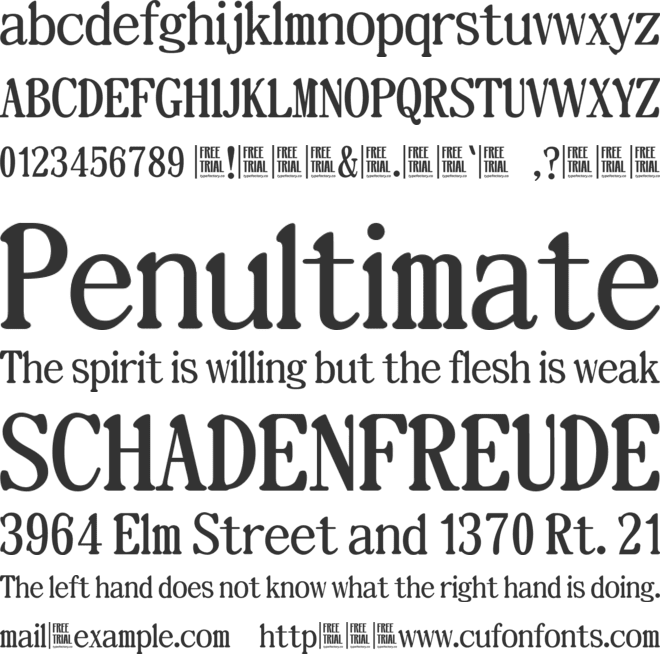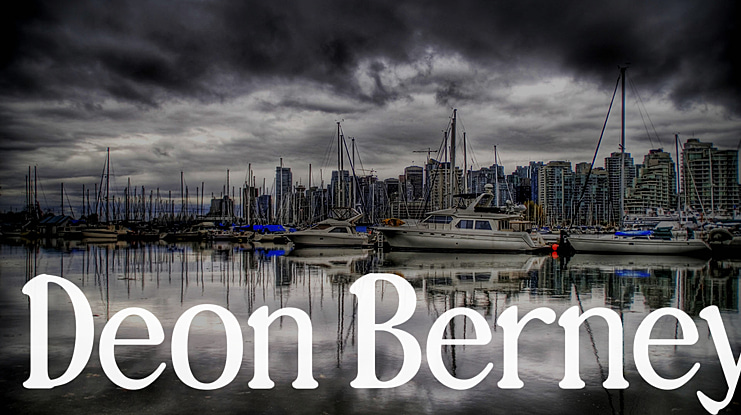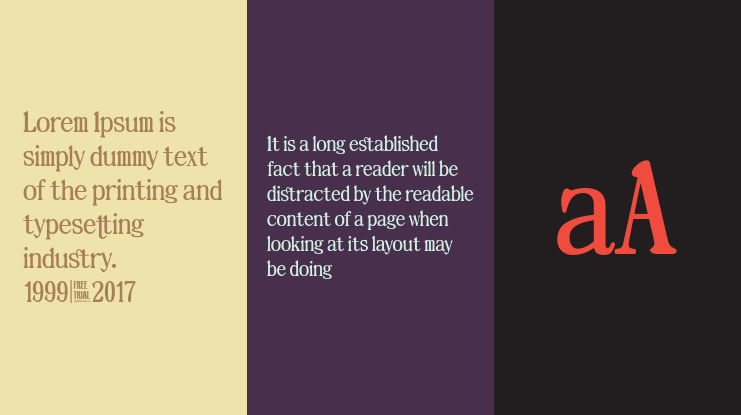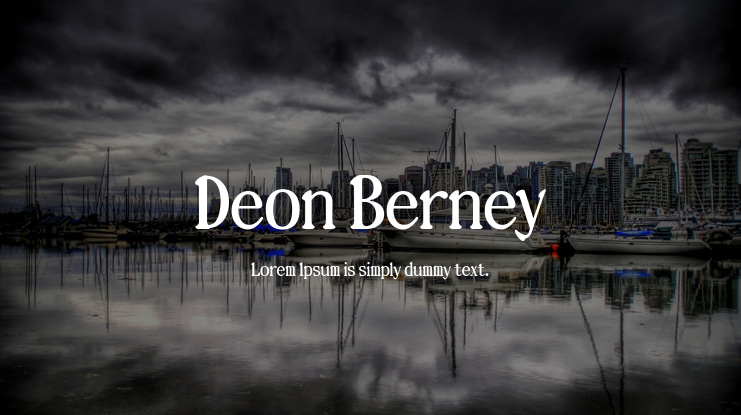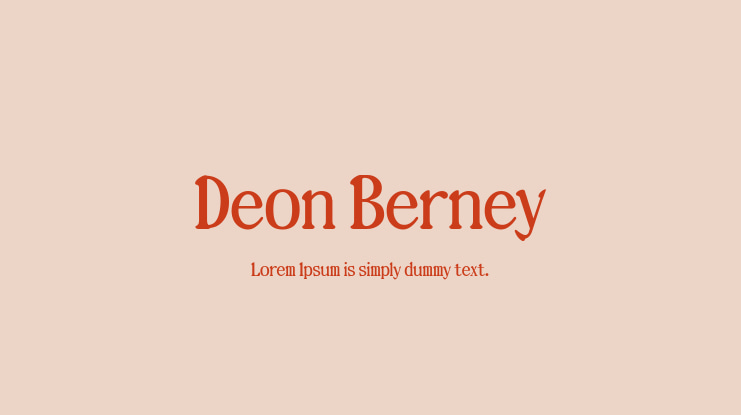
Deon Berney Font
Deon Berney is a mixed serif and script font.
No matter the topic, this font will be an incredible asset to your fonts’ library, as it has the potential to elevate any creation.